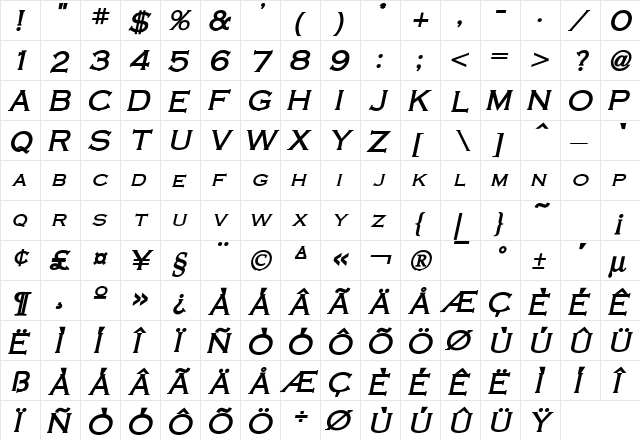
Cobalt Bold Italic
Design Context for Cobalt Typeface
Cobalt is a composed and adaptable typeface that performs quietly and consistently across a wide range of design contexts. The dynamic lean of this cut emphasises speed and emphasis in any layout. Its bold stroke weight gives it real presence on the page.
Pro Tip: Try Cobalt for annotation and caption copy alongside an upright companion — the contrast in angle creates a dynamic but ordered typographic system.